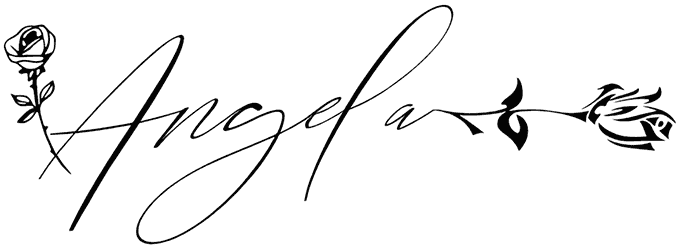
Lie to Me Font
This cursive font adds elegance and creativity to your typography and if you need something handwritten and friendly then Lie to Me font will do the perfect job. It provides characters that are classic, casual, and informal making it suitable for almost wherever you can visualize.
It includes mixed-case alphabets, numbers, and punctuations making Lie to Me, a very complete and tempting font that can be brilliant for invitation cards, wedding cards, posters, tattoos, and fashion ads.